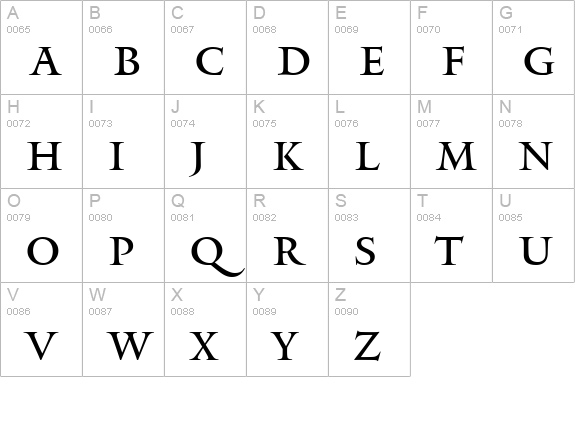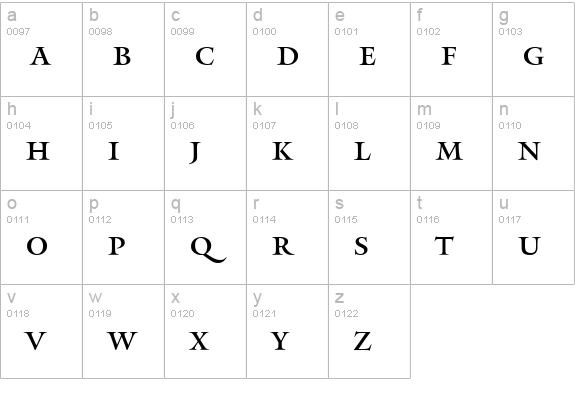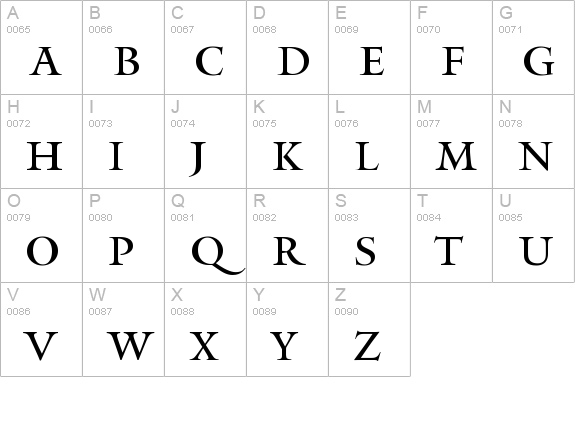
Monument Regular is the standard, neutral variant in the Monument typeface family \xE2\x80\x94 well suited to general body text, paragraphs, and standard typographic work.
Monument Regular font exudes a timeless elegance and sophistication with its clean lines and classic design. This versatile typeface is perfect for a wide range of projects, from branding to editorial design. The sharp serifs and balanced letterforms give Monument Regular a sense of authority and professionalism that is sure to make your text stand out. What's even better is that Monument Regular is available for free download at FontsMarket.com. This means you can add this stunning font to your collection without any cost, making it a valuable resource for your creative endeavors. Whether you're working on a logo, website, or print project, Monument Regular is a reliable choice that will elevate your design to the next level.